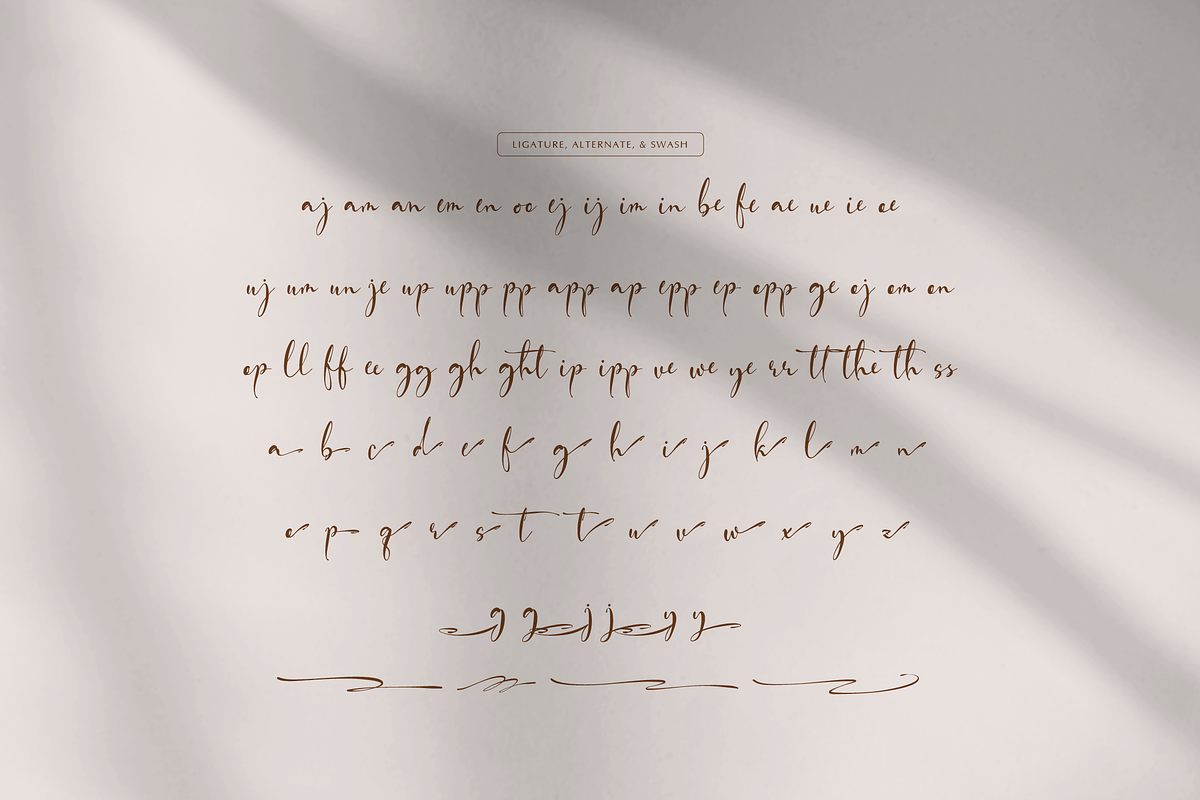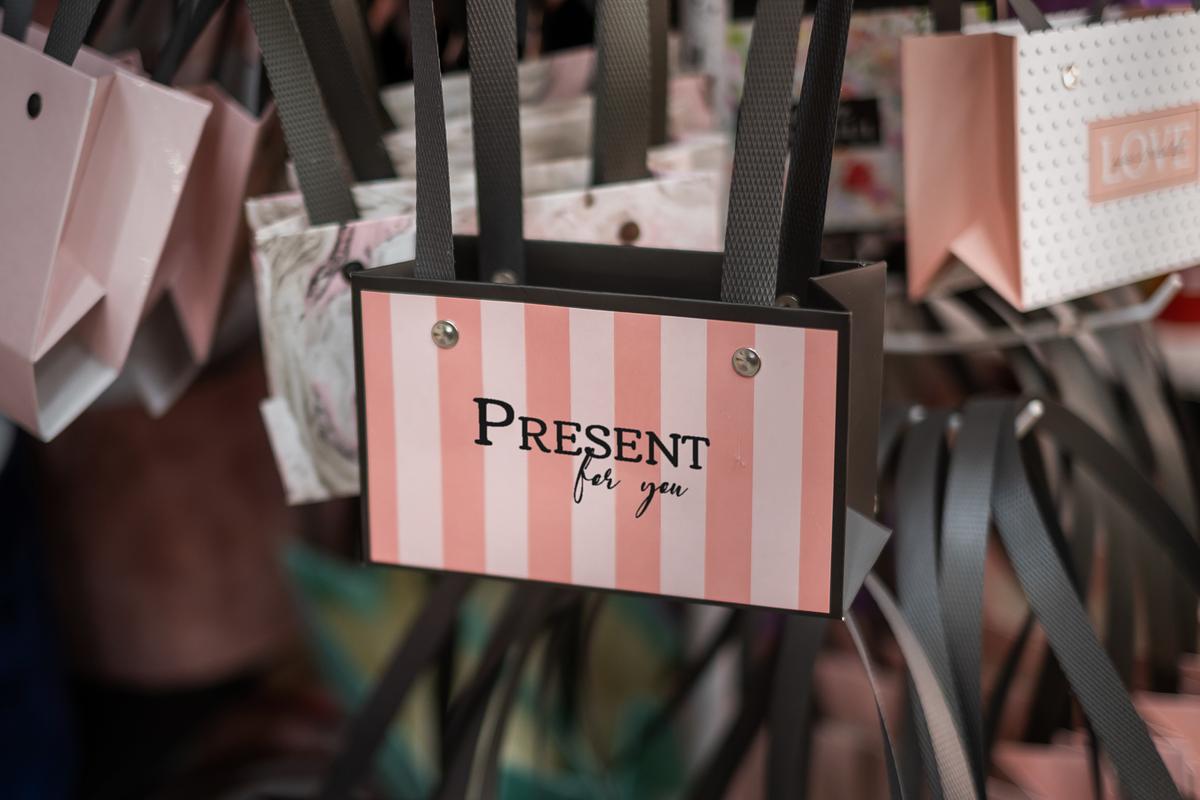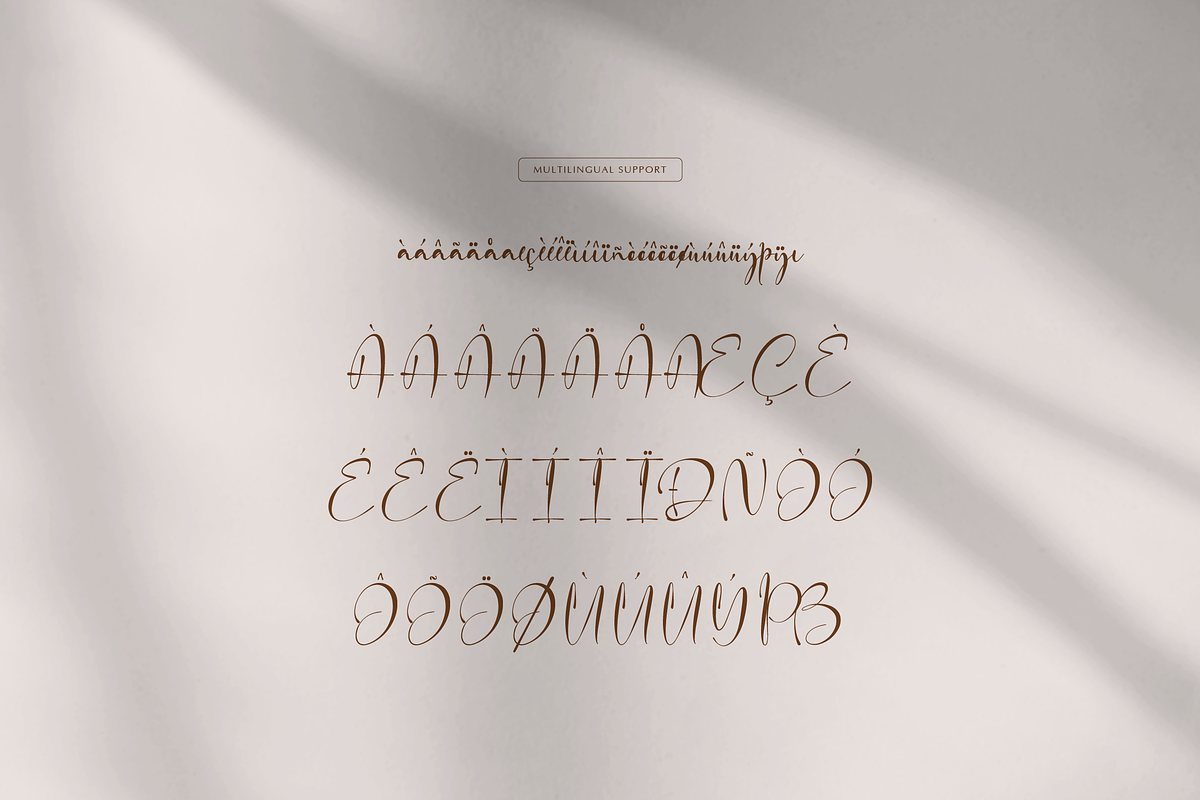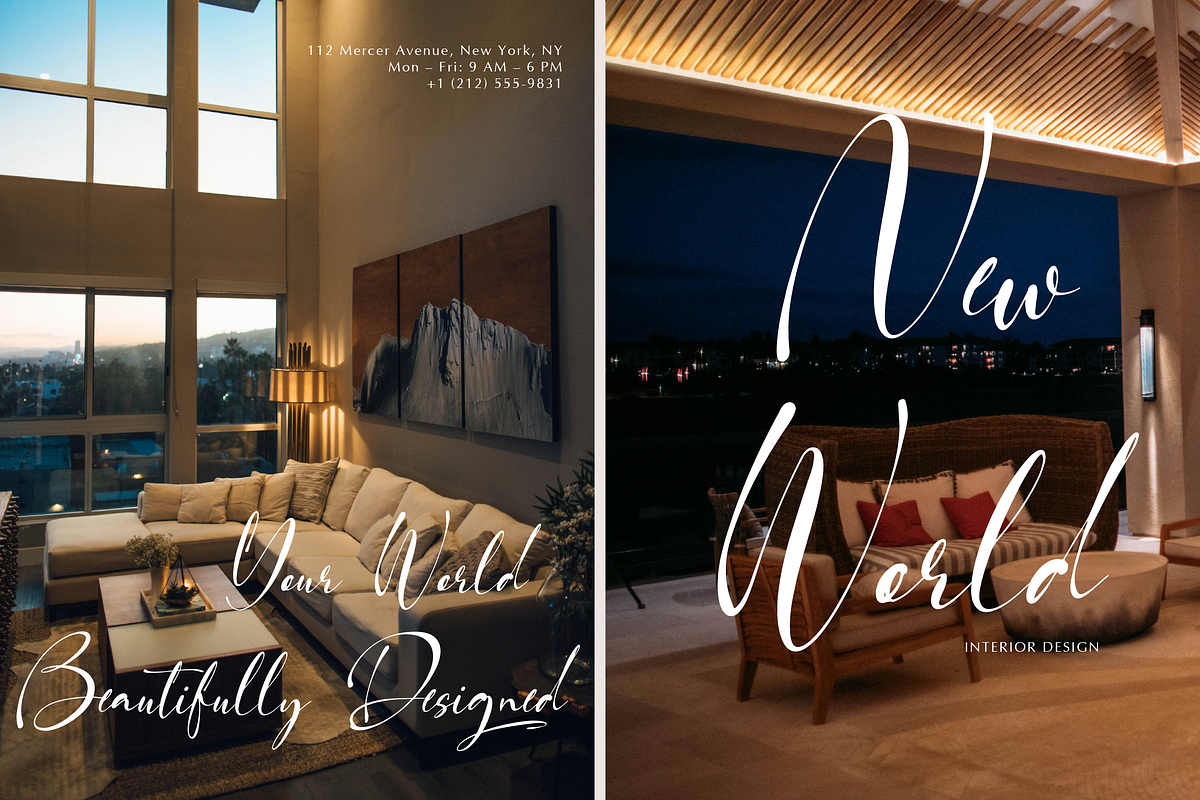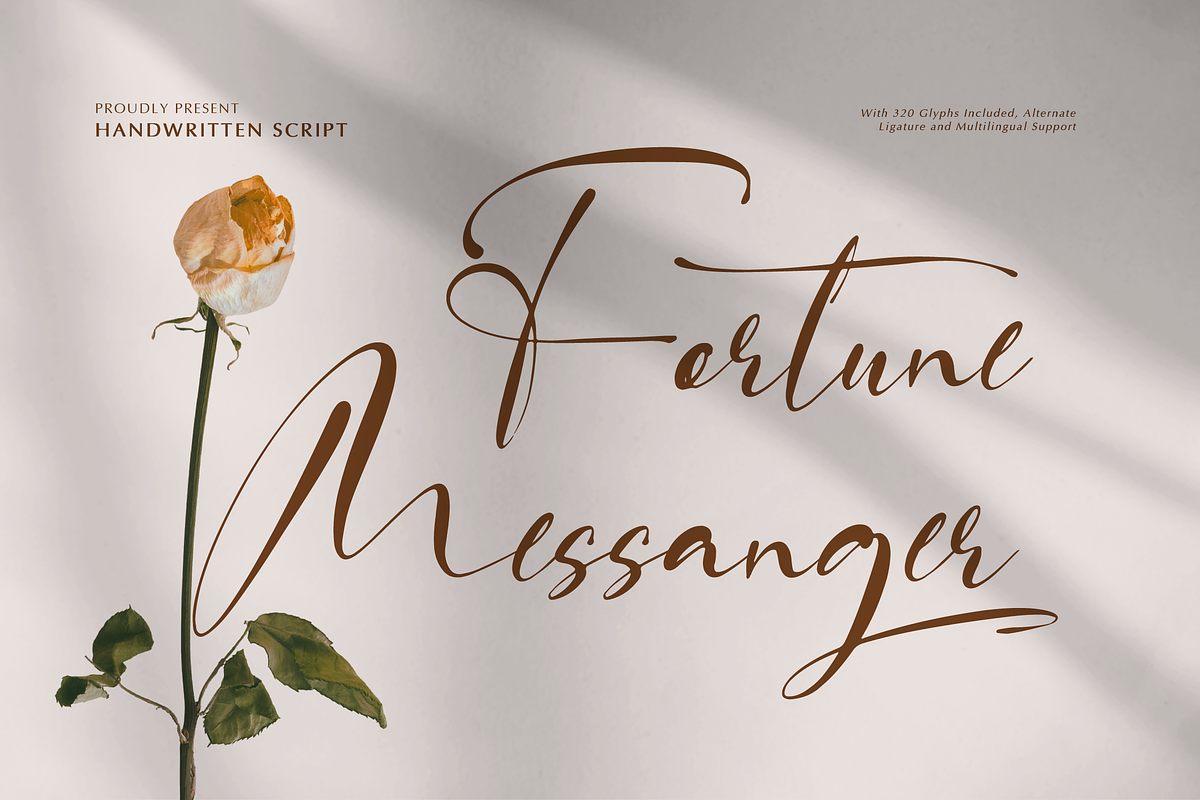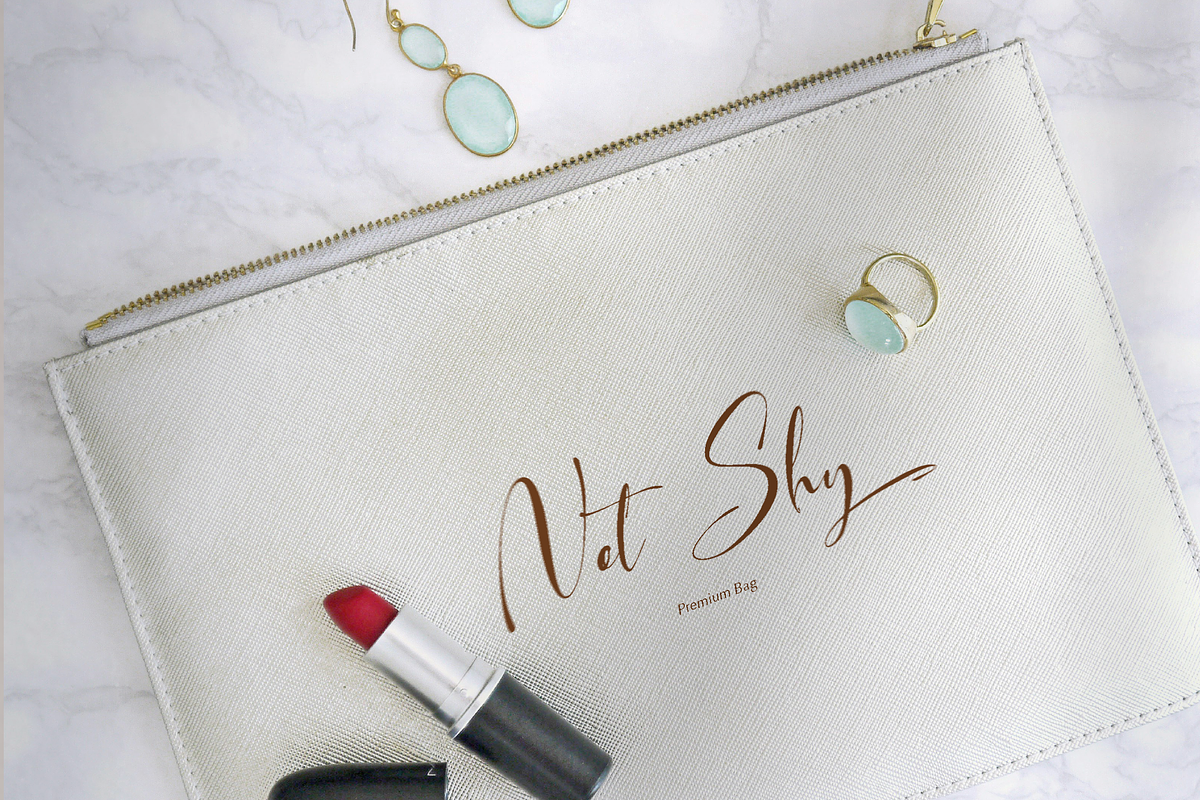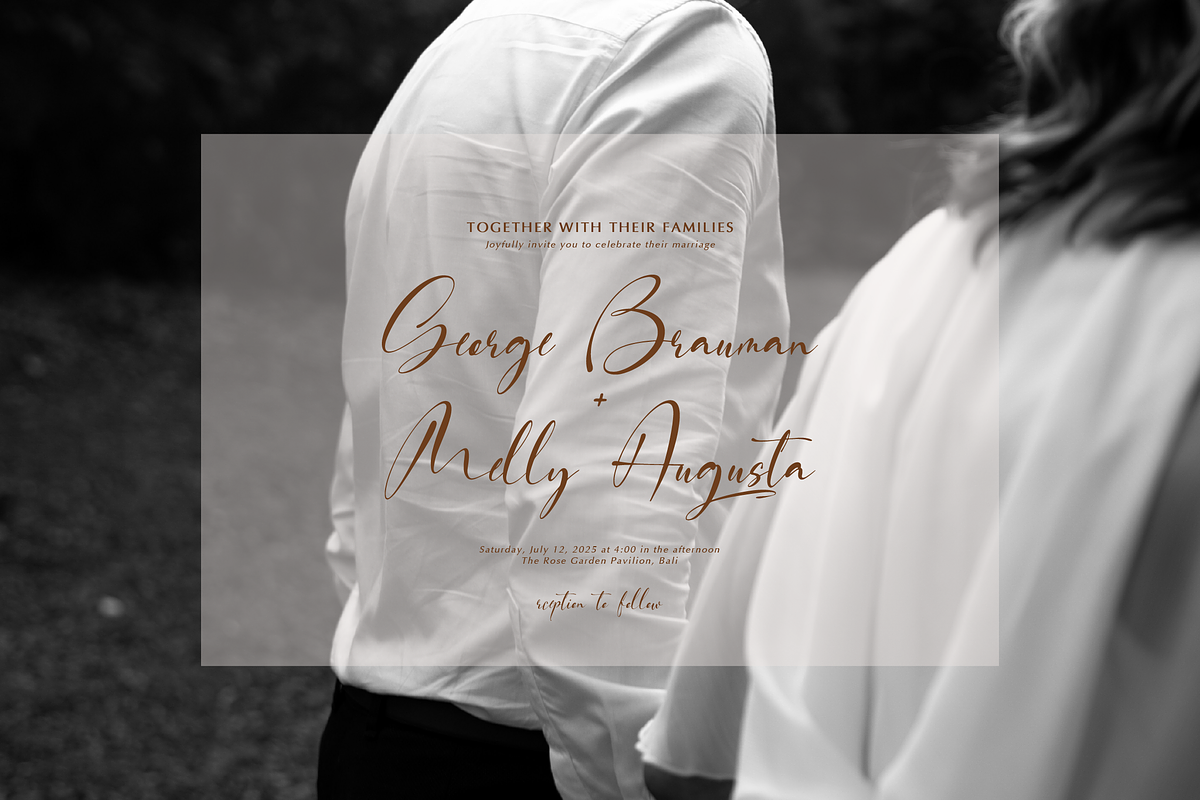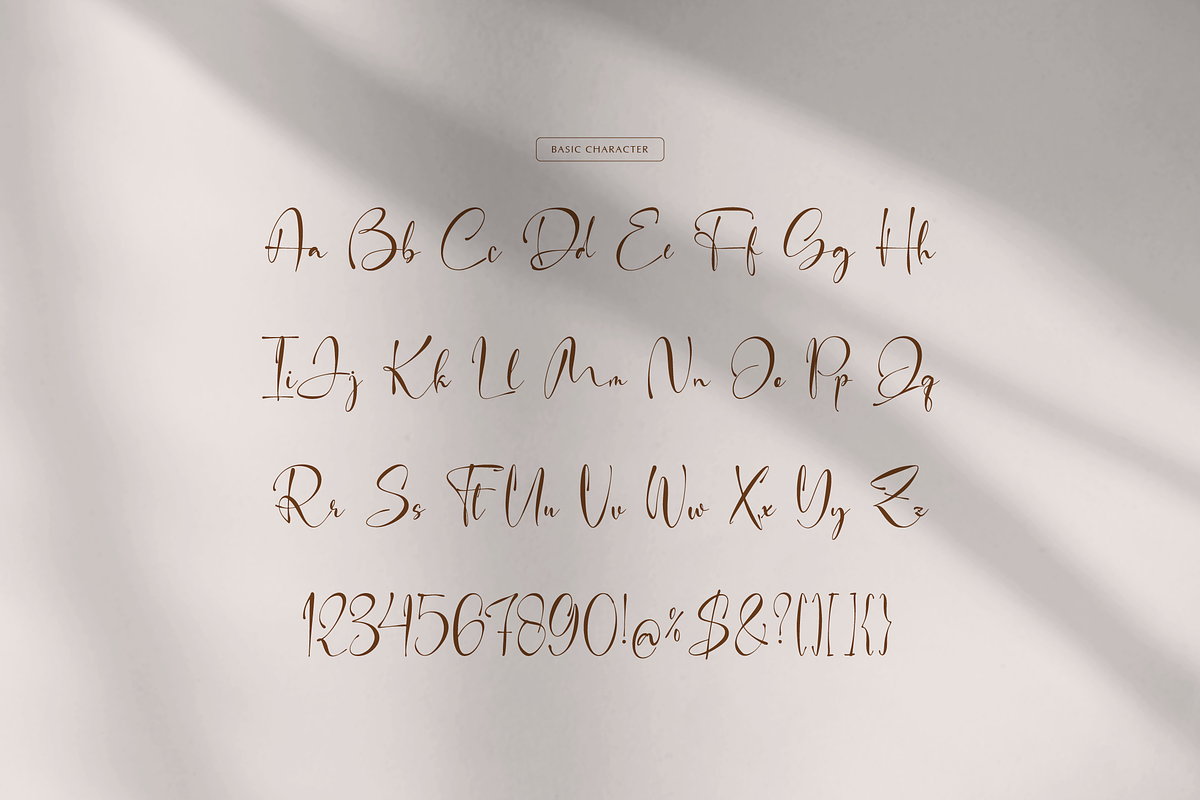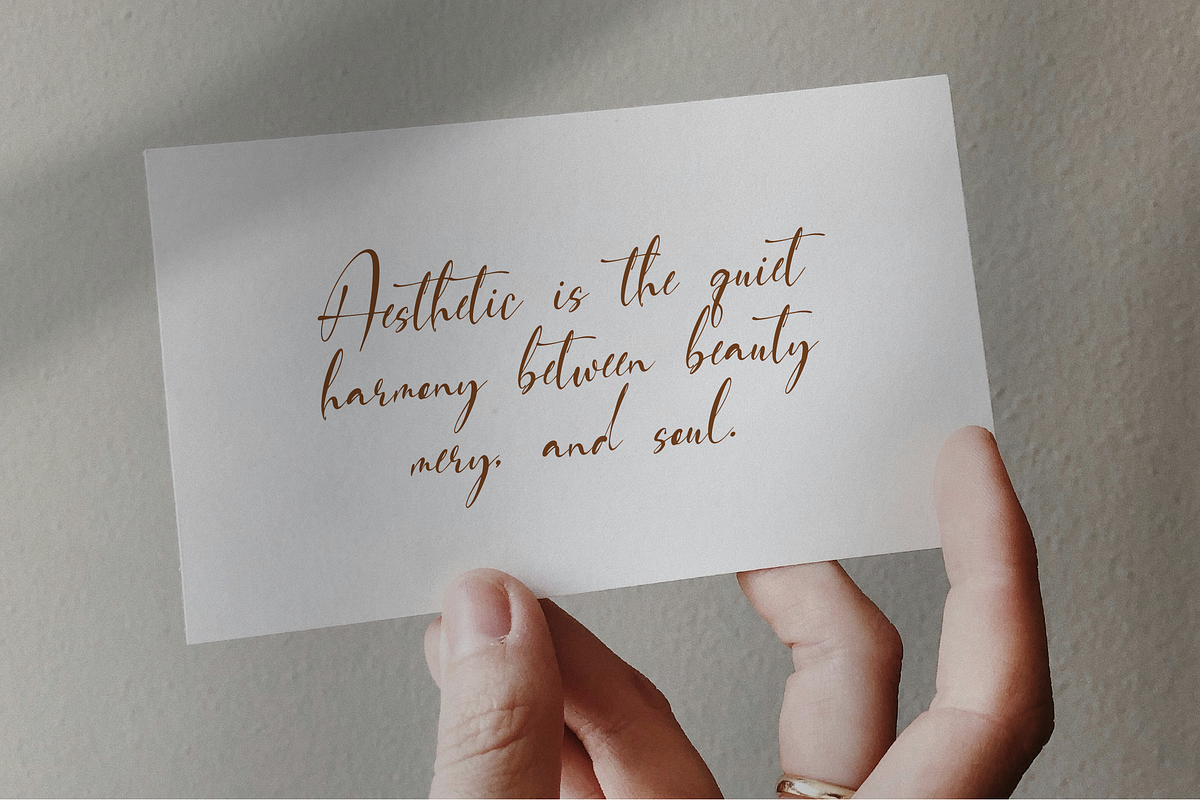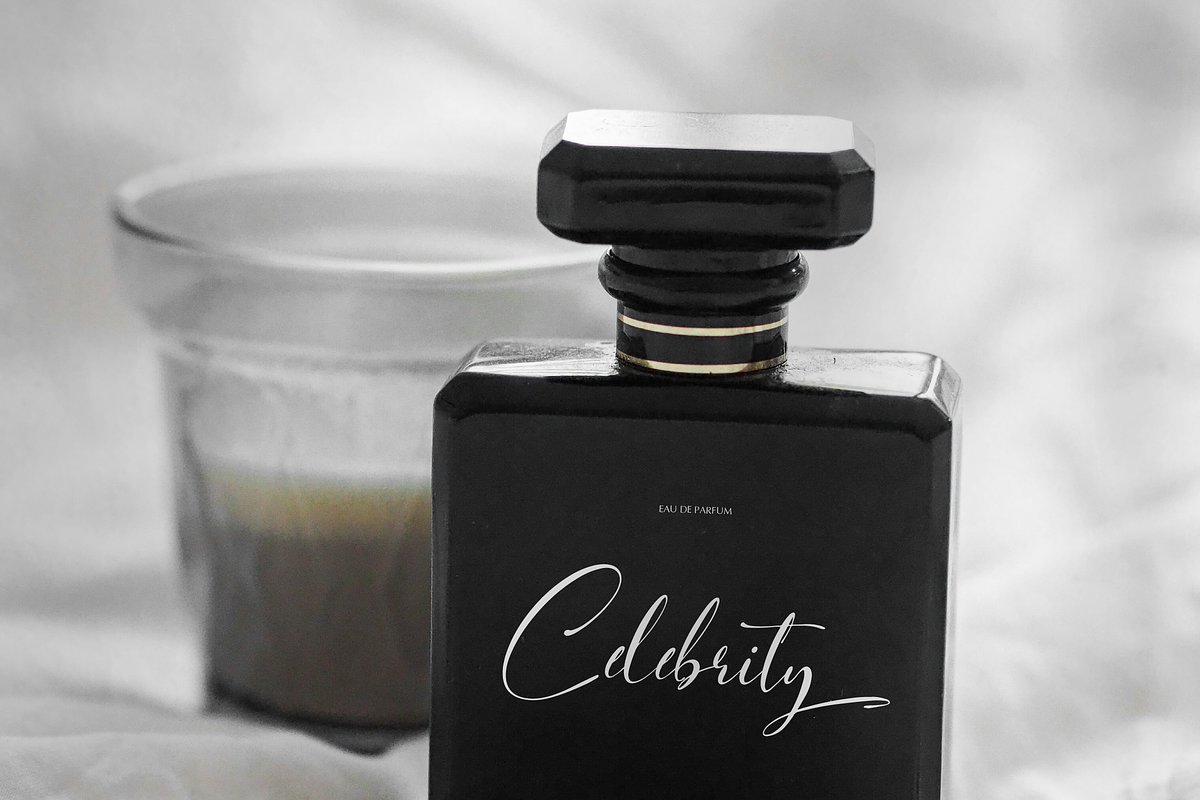
Fortune Messenger Handwritten Script
Fortune Messenger | Handwritten Script, from Gracetypestudio, suitable for any projects such as: logos, branding projects, homeware designs, product packaging, mugs, quotes, posters, shopping bags, t-shirts, book covers, name card, invitation cards, greeting cards, label, photography, watermark, special events, and all your other lovely projects that need a Handwritten Script taste.